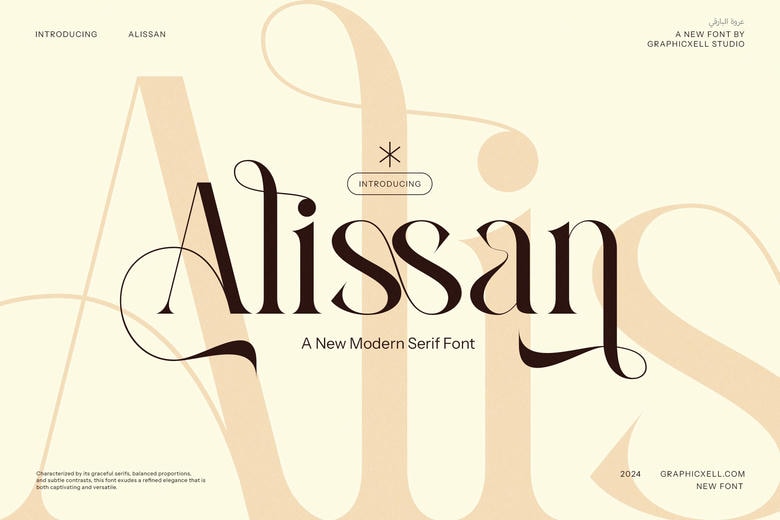
Alissan Font
Alissan is a ligature serif font that was designed by paying extra attention in order to achieve high standard and glossy look. The estimated ligatures are applied to this typeface making it different from regular serif typefaces. Perfect for logos, headlines, titles and any other formal purpose like invitation, labels, magazines, books, greeting/wedding cards, packaging, fashion, makeup, stationery, novels or any ad purpose.
Alissan Serif Font